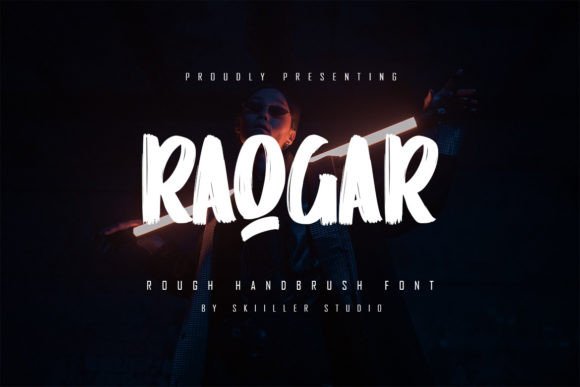
Introducing Raqgar Font, the ultimate typography solution for bold and captivating designs. This exquisite script font, meticulously crafted by the renowned Skiiller Studio, emulates the raw energy of handwritten brush strokes, leaving a lasting impression on your creations.
Indulge in the beauty of Raqgar's imperfections, as its slightly dry texture mimics the authenticity of a genuine brush pen. Its unique character dances across the page, bringing a touch of realism to your projects.
Whether you're crafting alluring magazine covers, designing impactful logos, or creating eye-catching product packaging, Raqgar Font empowers you to make a statement. Its versatility extends to headlines that demand attention, posters that ignite emotions, and merchandise that exudes style.
Unleash the power of Raqgar Font on social media, where your posts will radiate with a captivating presence. Elevate your greeting cards with a touch of handwritten charm, making every message a work of art.
With Raqgar Font, the possibilities are limitless. Embrace the beauty of bold embroidery, where the threads dance in perfect harmony with the font's expressive strokes. Let your designs shine with the confidence and authenticity of Raqgar Font, the epitome of typography excellence.